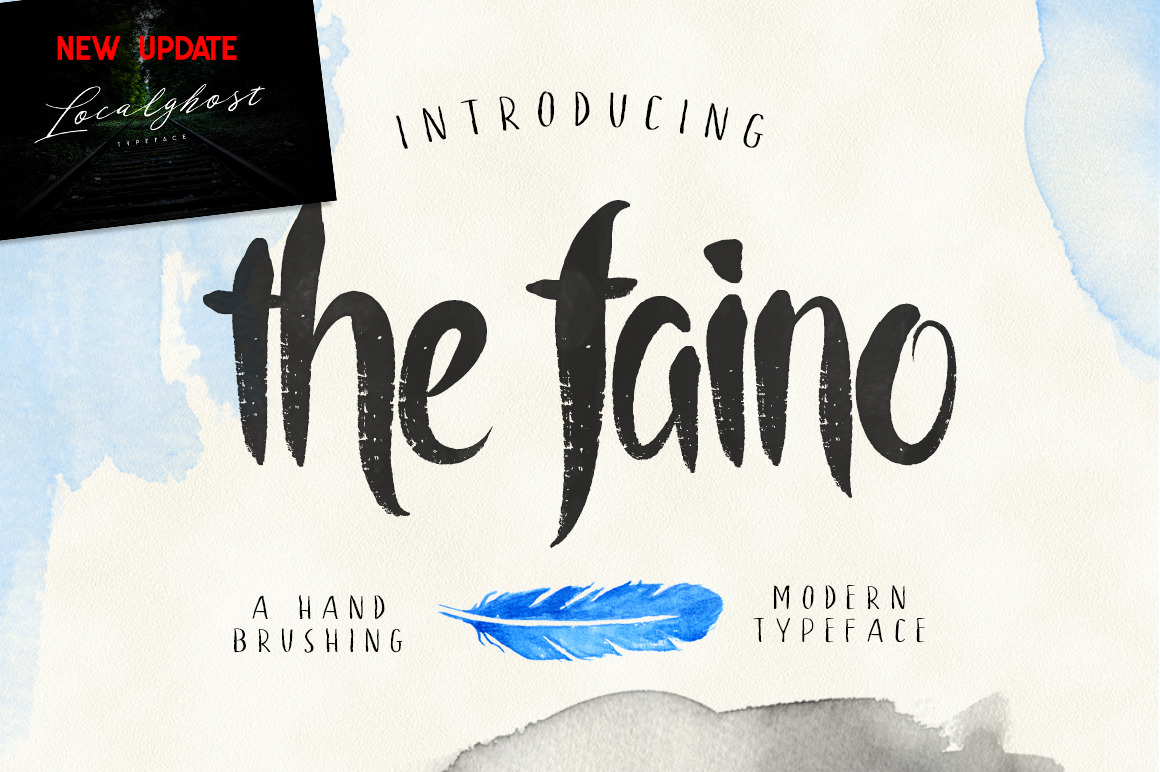
the faino typeface
the faino is a font that uses a brush handwriting font style. Character is very unique, have texture and fun, suitable for a wedding invitation, badges, foods menu design etc. Small font size (ex : 38pt letter) still look very good and readable. Bigger size of this font will show great detail of this brush character.
For those who love to create project with fun concept design, the faino handwriting brush style typeface is suitable for your font collection.